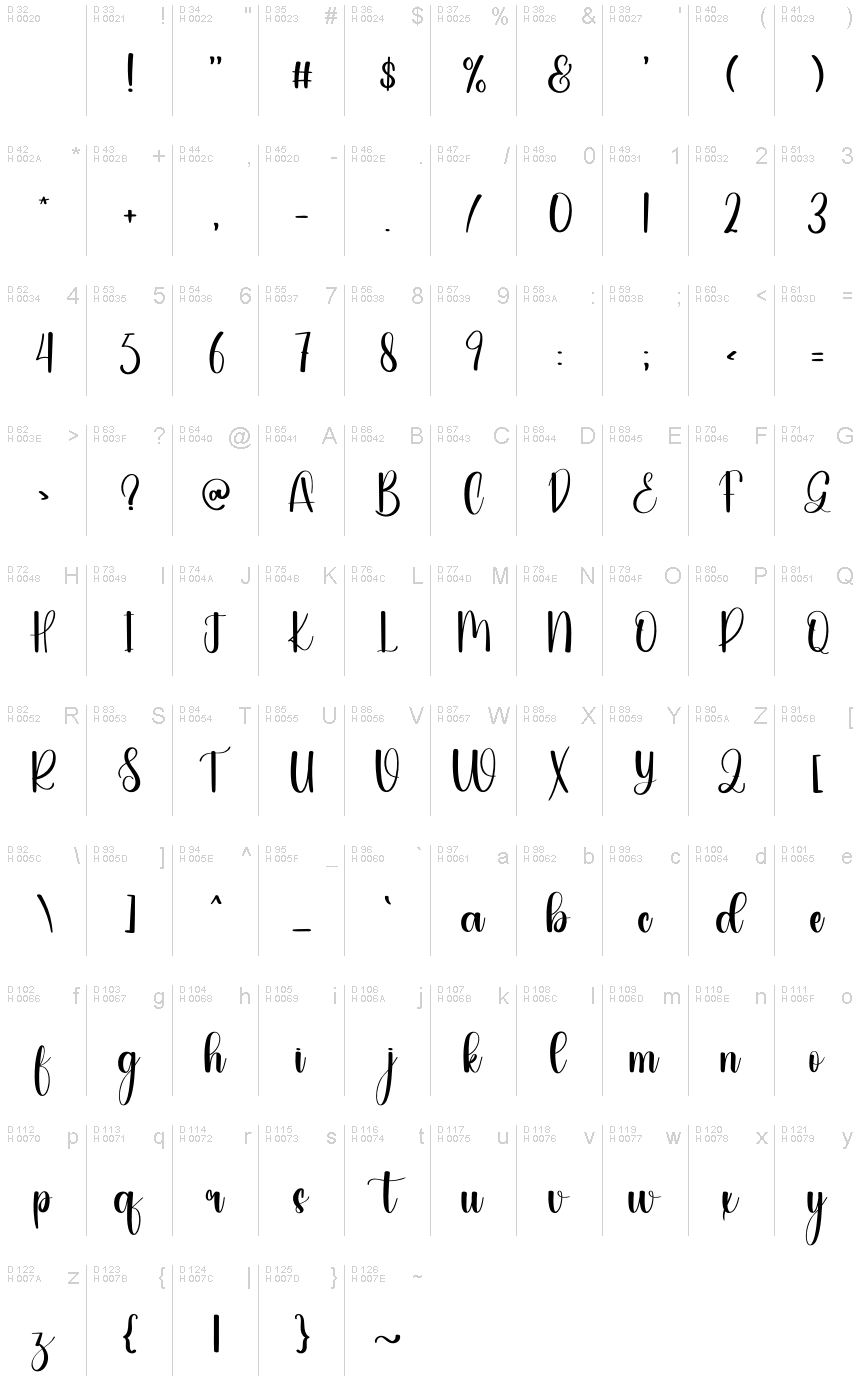
Wallet
Wallet is a captivating calligraphic font designed by PiPi Creative. Its sweeping, fluid lines and graceful curves evoke a sense of elegance and sophistication. The font's dynamic, handwritten-inspired aesthetic lends an organic, personalized touch to any design. From eye-catching headlines to decorative flourishes, "Wallet" seamlessly blends traditional calligraphy with a modern sensibility, making it a versatile choice for a wide range of applications, from editorial layouts and packaging to branding and social media.
The font's distinctive character shapes and expressive, energetic strokes capture the essence of calligraphic artistry, elevating even the simplest of typographic treatments. Wallet is a captivating typeface that effortlessly bridges the gap between timeless craftsmanship and contemporary design, offering designers a unique tool to infuse their work with a touch of refined, sophisticated charm.